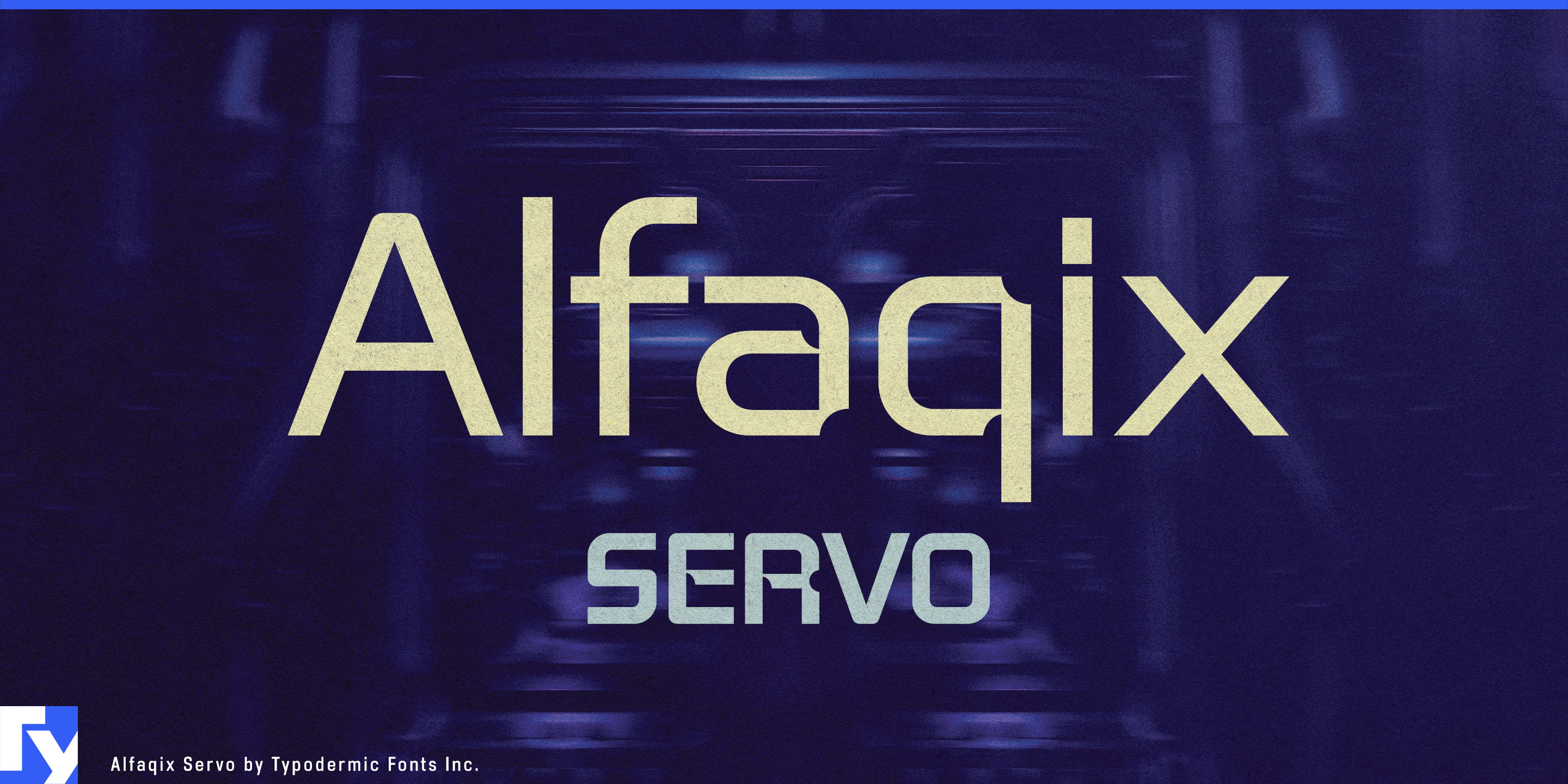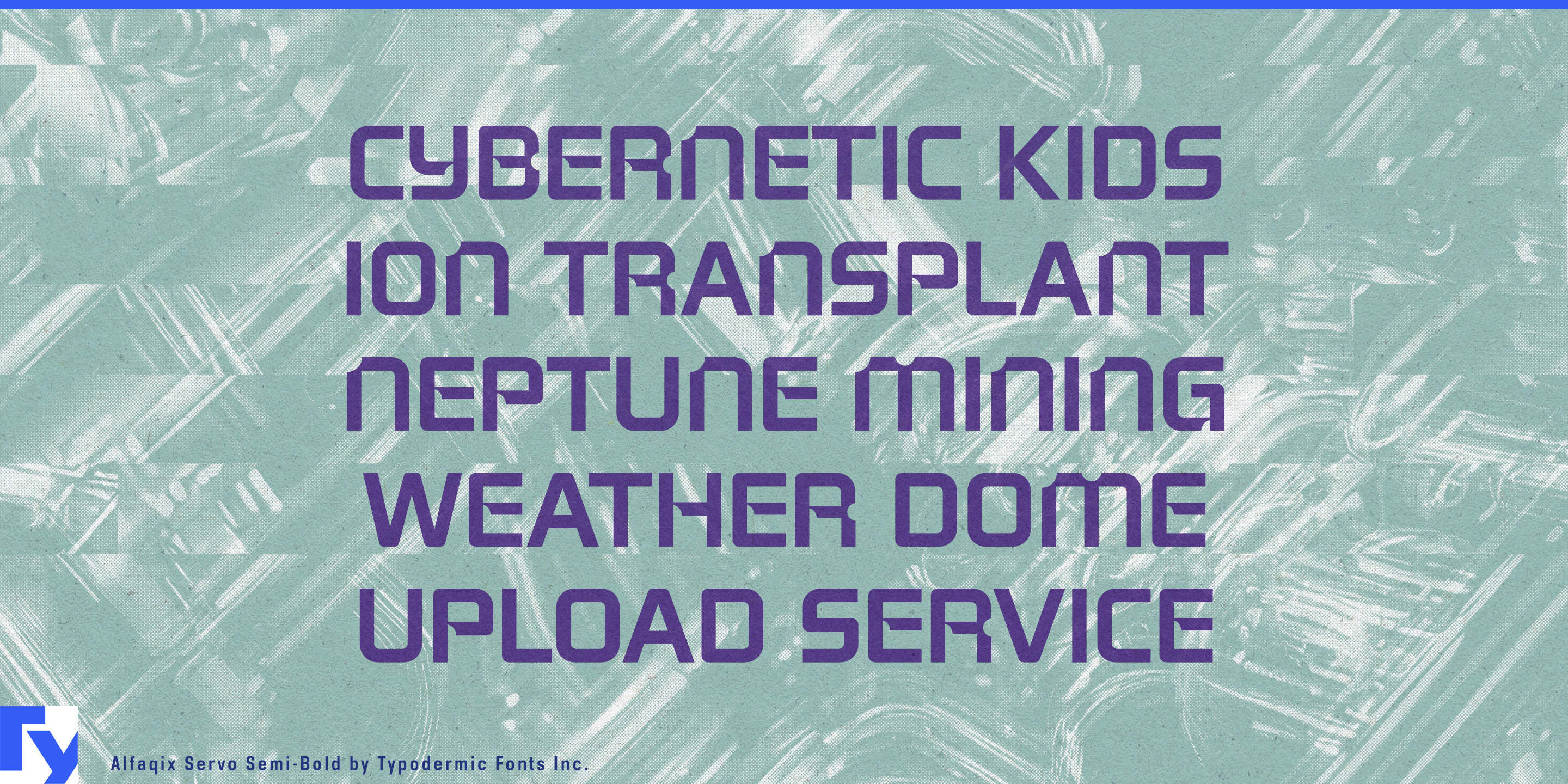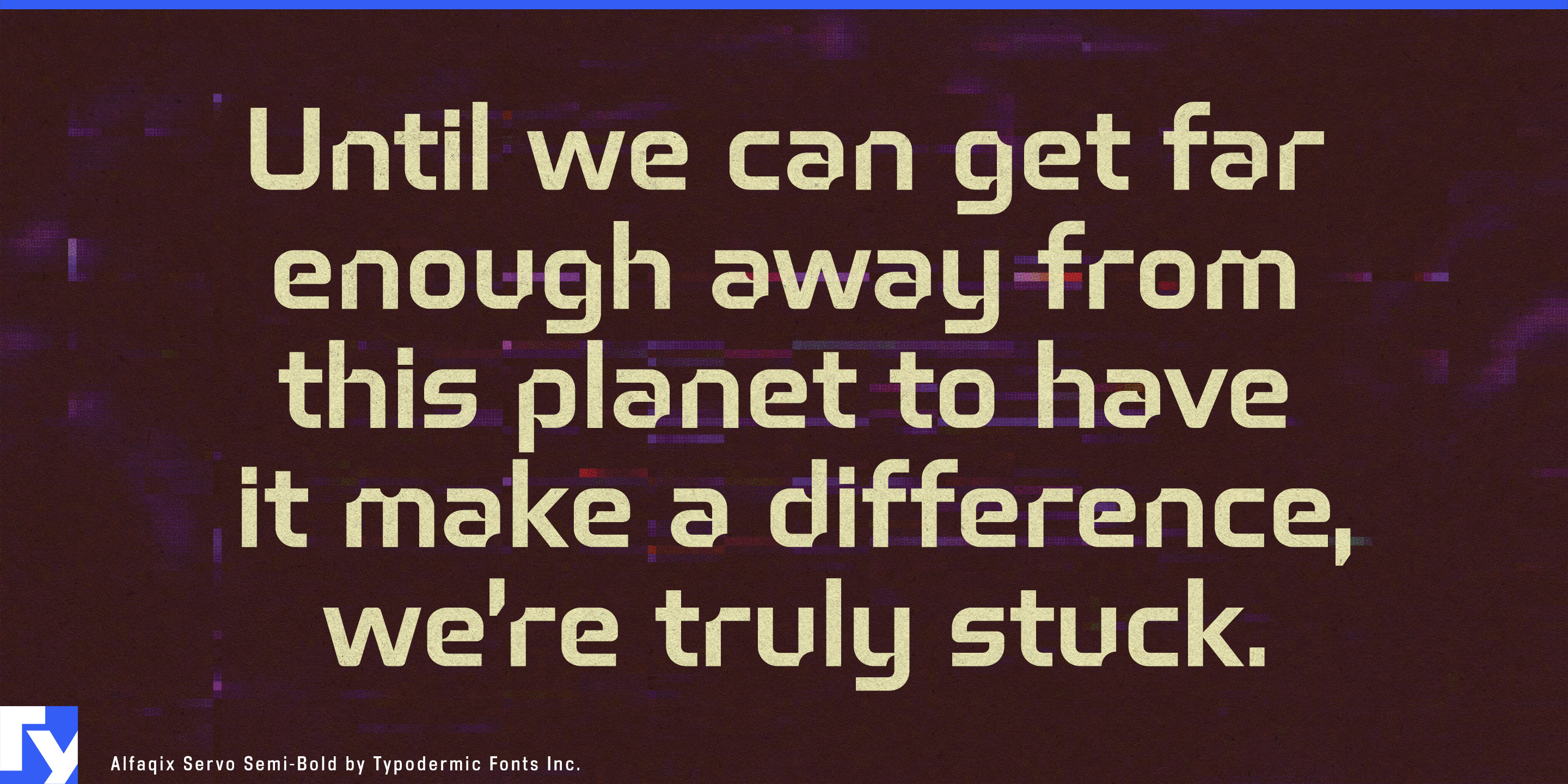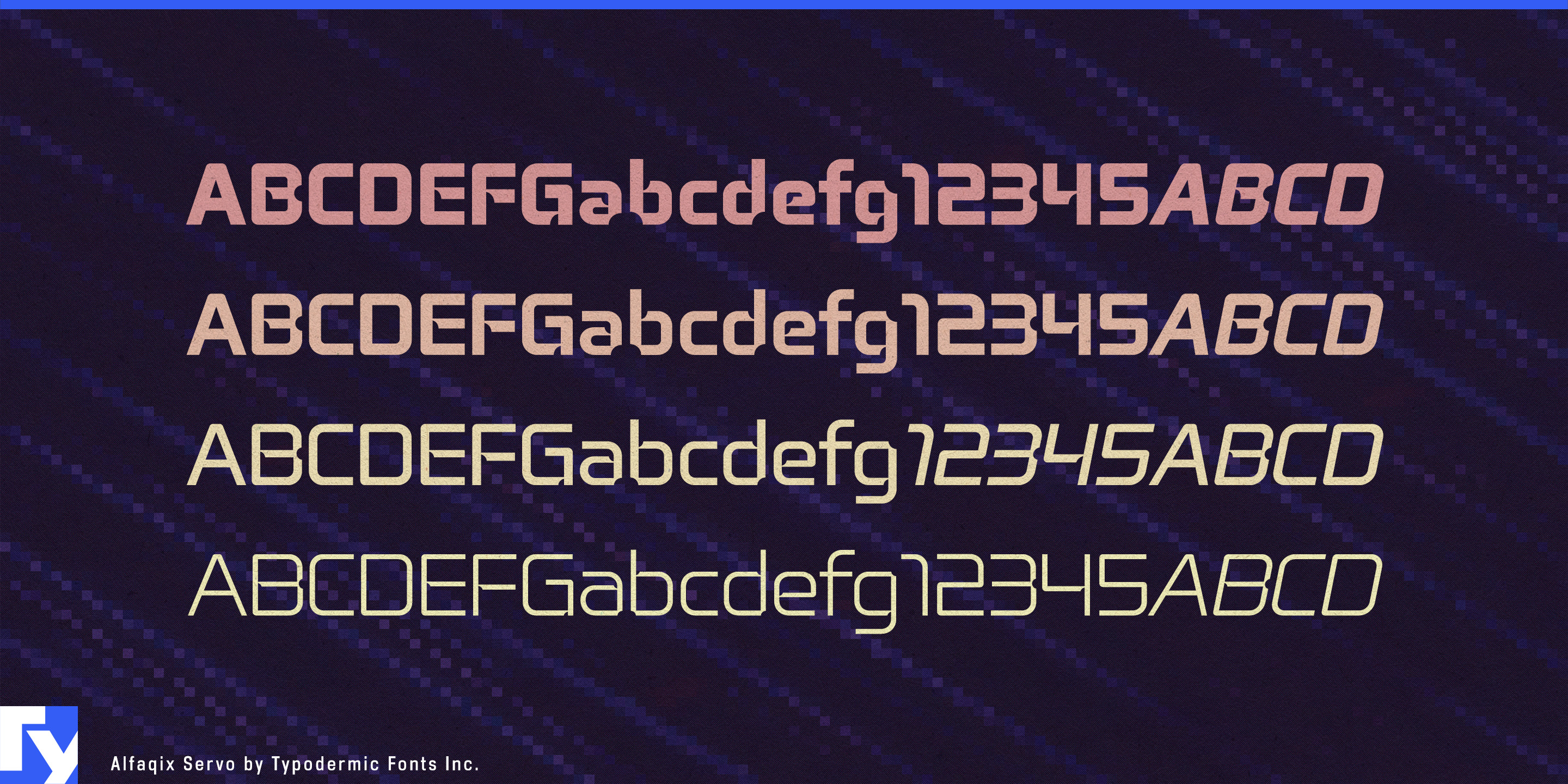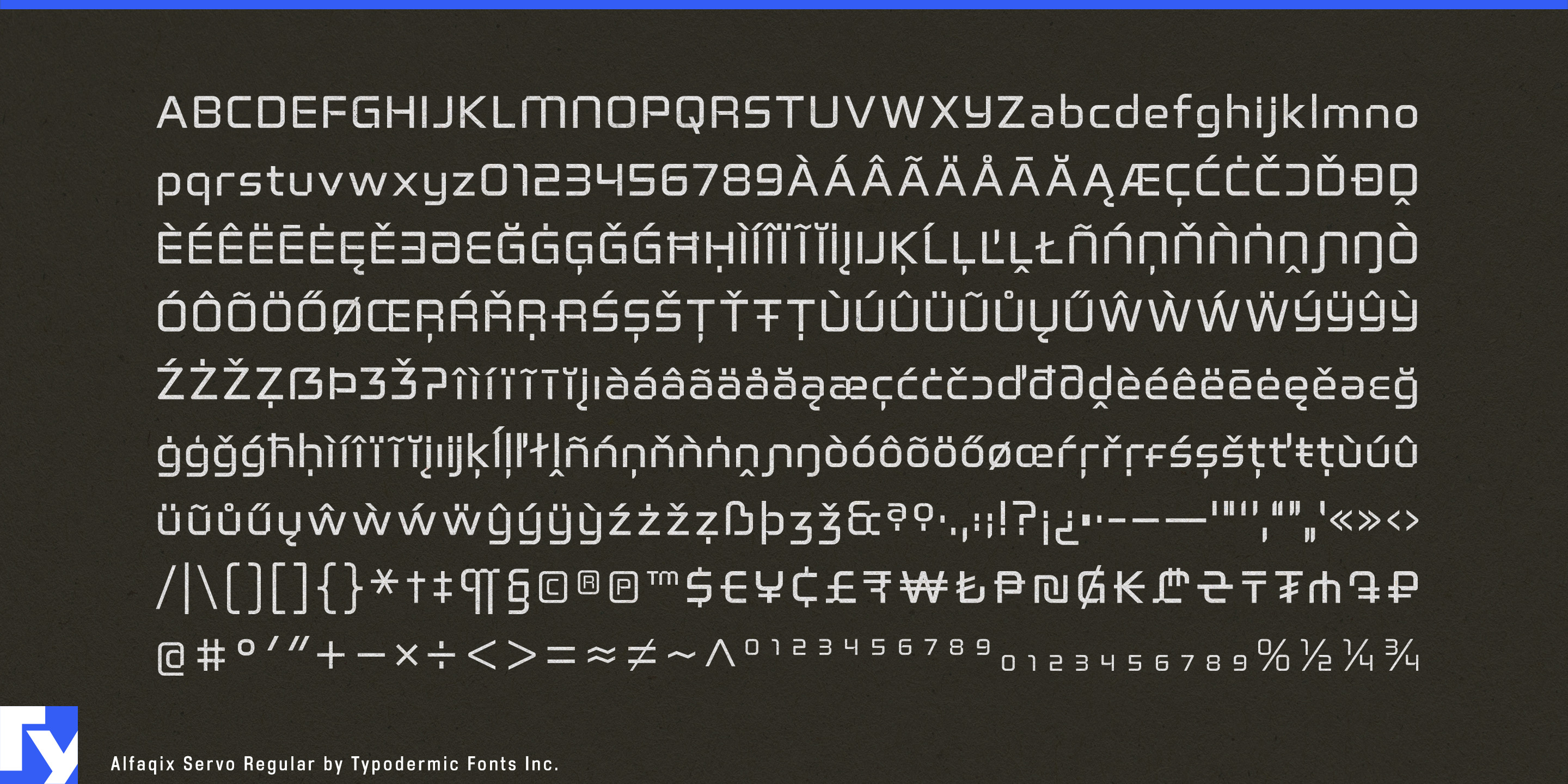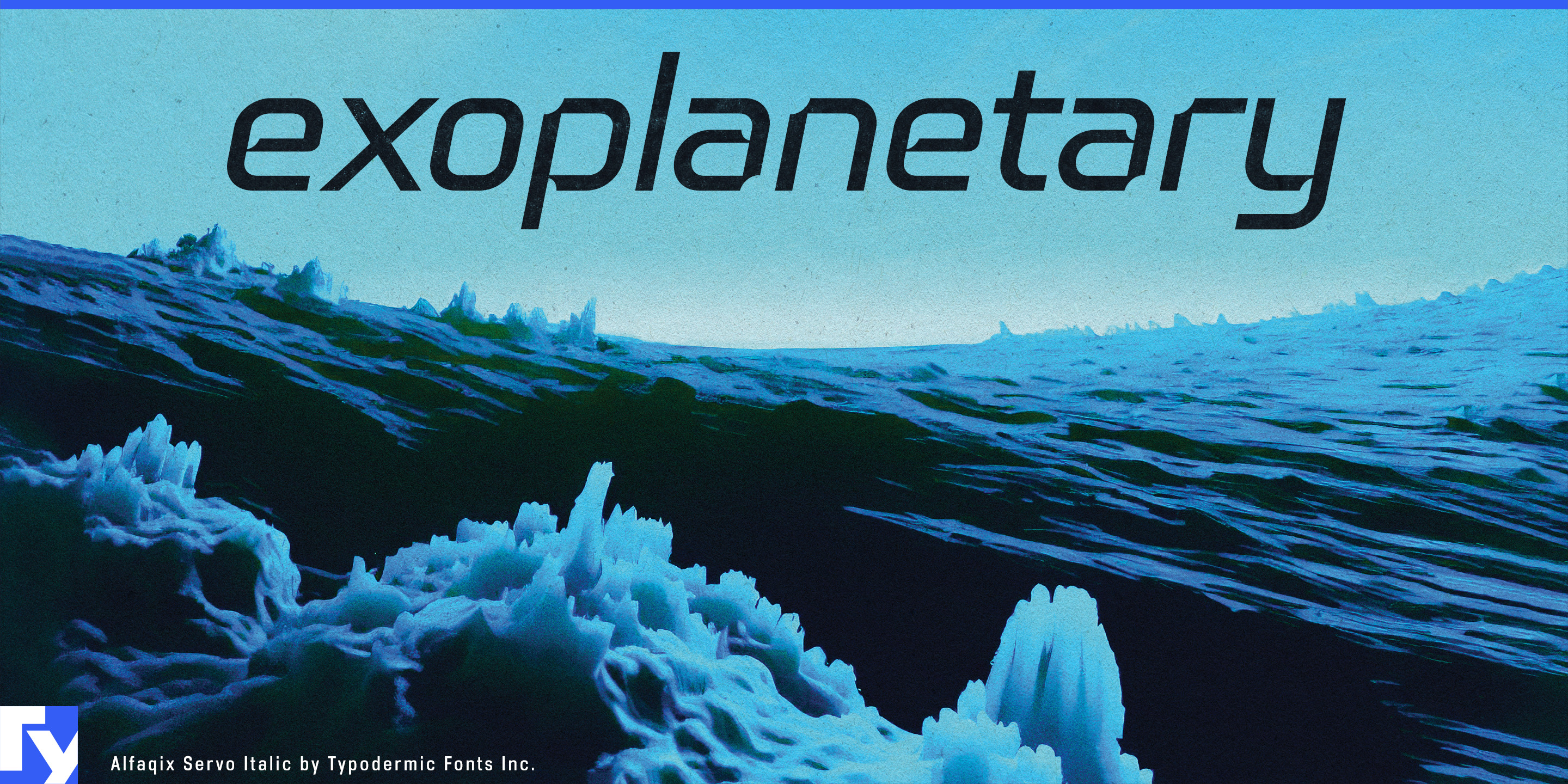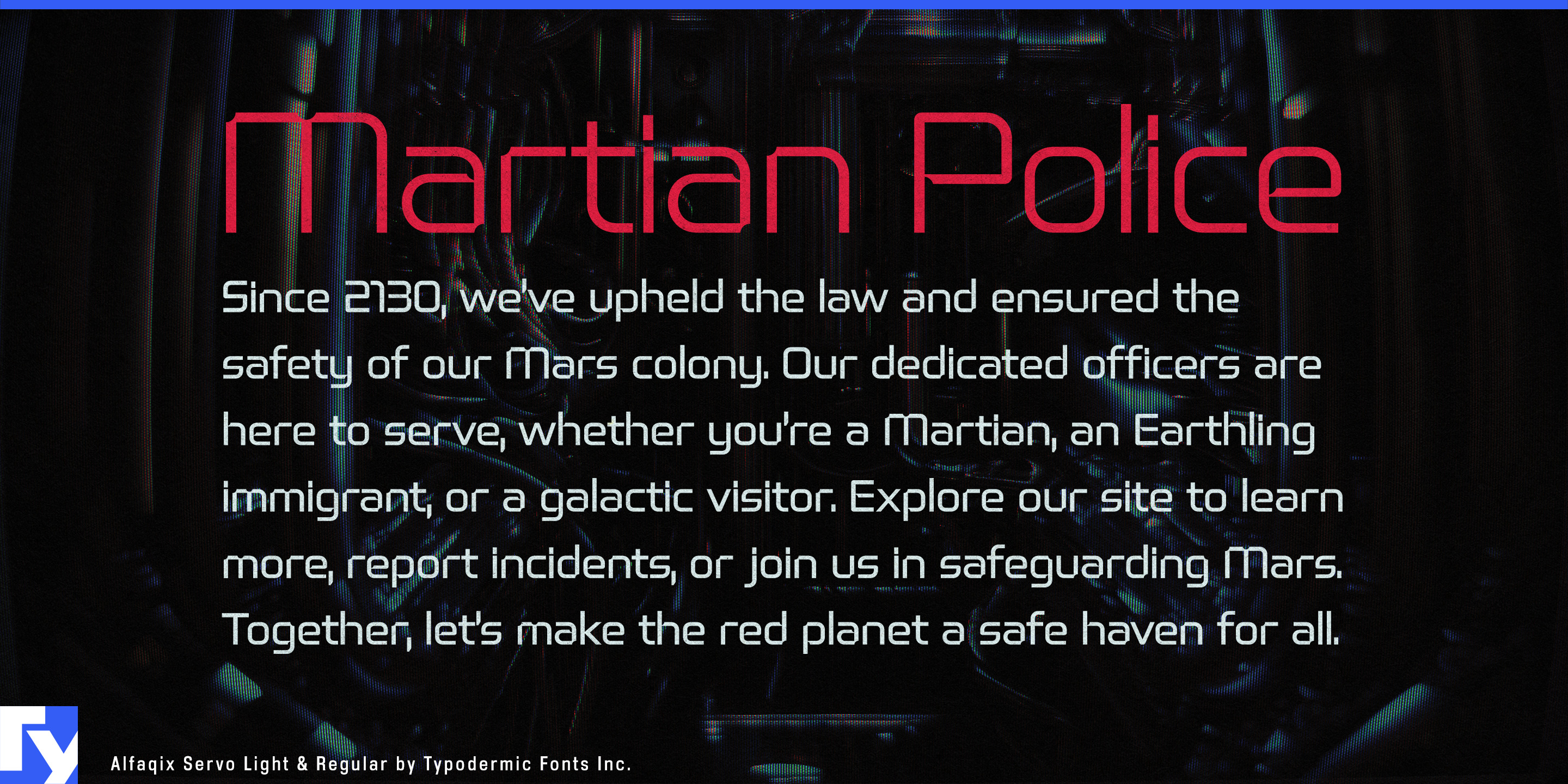
Alfaqix Servo
Automated machinery needs typography that looks as though it belongs to the machine. A robot arm, CNC system or motion controller may be built from motors, joints, enclosures and precisely fitted components; generic corporate lettering can make its name feel applied afterward. Push too far toward science-fiction typography and serious industrial equipment starts looking fictional. Alfaqix Servo occupies the useful territory between those extremes.
Servo is built from the modular framework shared by the Alfaqix families, but its flat stroke endings and reversed circular corner notches give the letterforms a distinctly mechanical character. Those scooped junctions suggest fitted parts, clearances and articulated components without literally imitating machinery.
Industrial robotics is natural territory. Robot arms, collaborative robots, pick-and-place systems, automated assembly equipment and robotic cells need model names, machine markings, control-panel headings and exhibition graphics. Heavier weights can establish the machine or product family, while lighter styles extend the same construction into diagrams, feature headings and short technical material.
Motion-control hardware gives Servo an even more focused role. Servo motors, drives, positioning systems and linear actuators are commonly organized into families of related products with model designations, performance categories and technical diagrams. Servo’s modular geometry gives those systems a recognizable visual language without reducing them to anonymous engineering labels.
CNC equipment and digital fabrication extend the same idea to machining centres, laser cutters, industrial 3D printers and automated fabrication systems. Servo can move from equipment housings and model names to specification sheets, demonstration graphics and technical callouts while a conventional text face handles dense instructions.
Warehouse automation provides another strong setting. Autonomous mobile robots, sorting systems, conveyor controls, robotic picking equipment and automated storage systems all revolve around machines moving through controlled sequences. Fleet names, model numbers, zone labels and system headings can use Servo to reinforce that mechanical environment.
Within the Alfaqix family, Servo is the variant most closely associated with machinery in motion. Its notched construction gives robotics, motion-control systems and automated equipment typography that feels integrated with the mechanisms around it rather than added after the engineering is finished.